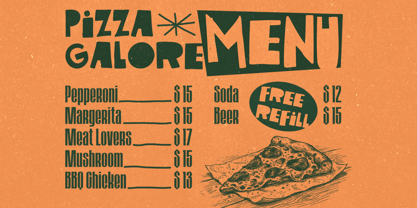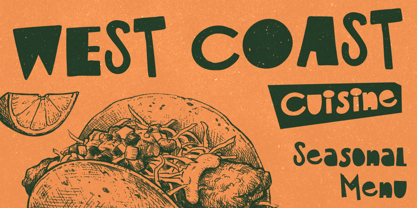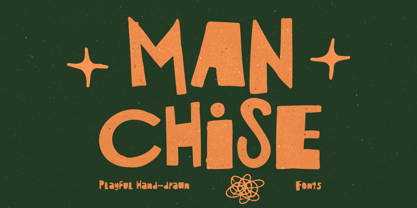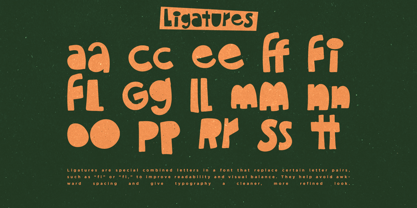
Manchise
by Konstantine Studio
The Manchise Font Family was designed by Abdilah and published by Konstantine Studio. Manchise contains 1 styles. More about this family
Stop settling for "safe" typography and give your brand a voice that actually pops. Manchise is a quirky, bouncy, and undeniably charismatic hand-drawn display font designed for creators who aren’t afraid to be bold. With its chunky letterforms and irregular, organic rhythm, Manchise captures that elusive "hand-crafted" vibe that instantly builds trust and personality. Whether you’re designing for a trendy taco joint, a craft brewery, or a vibrant organic juice brand, Manchise delivers a friendly, approachable energy that makes customers feel right at home. Ready to level up your brand? Don't let your designs blend into the background. Give them the zest they deserve.
Designers: Abdilah
Foundry: Konstantine Studio